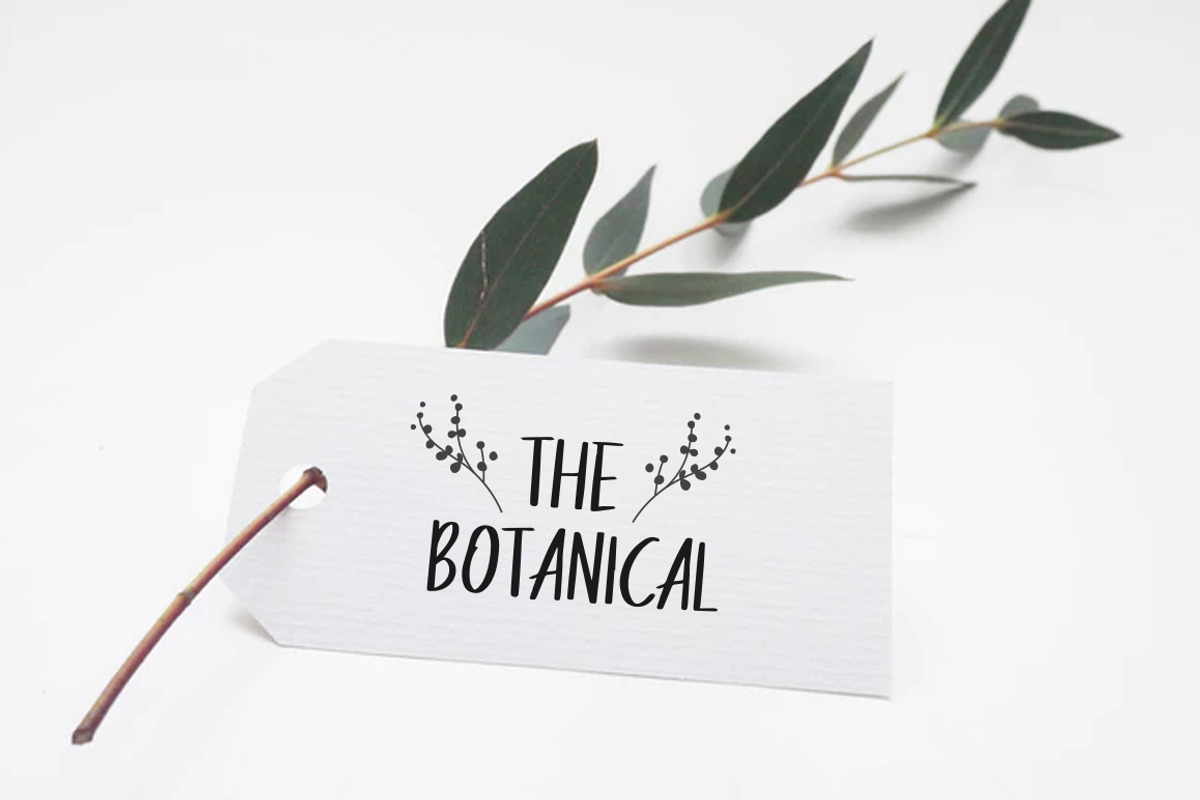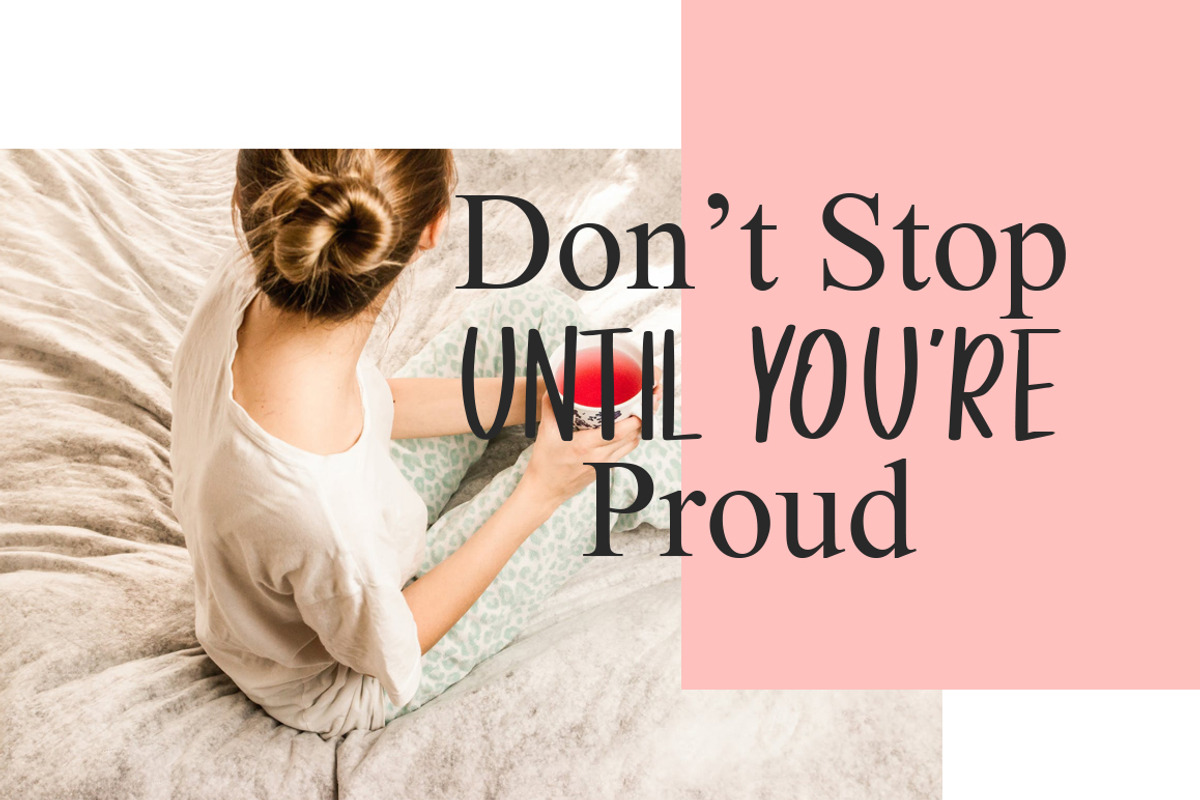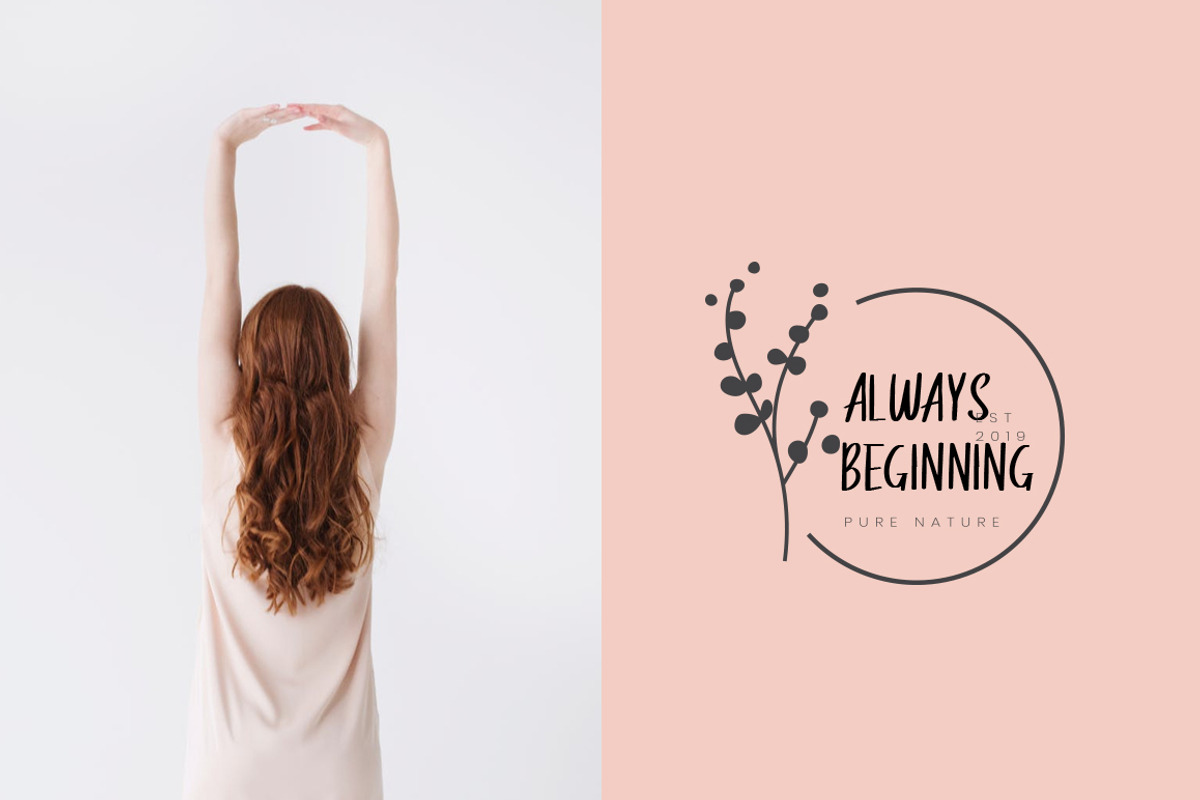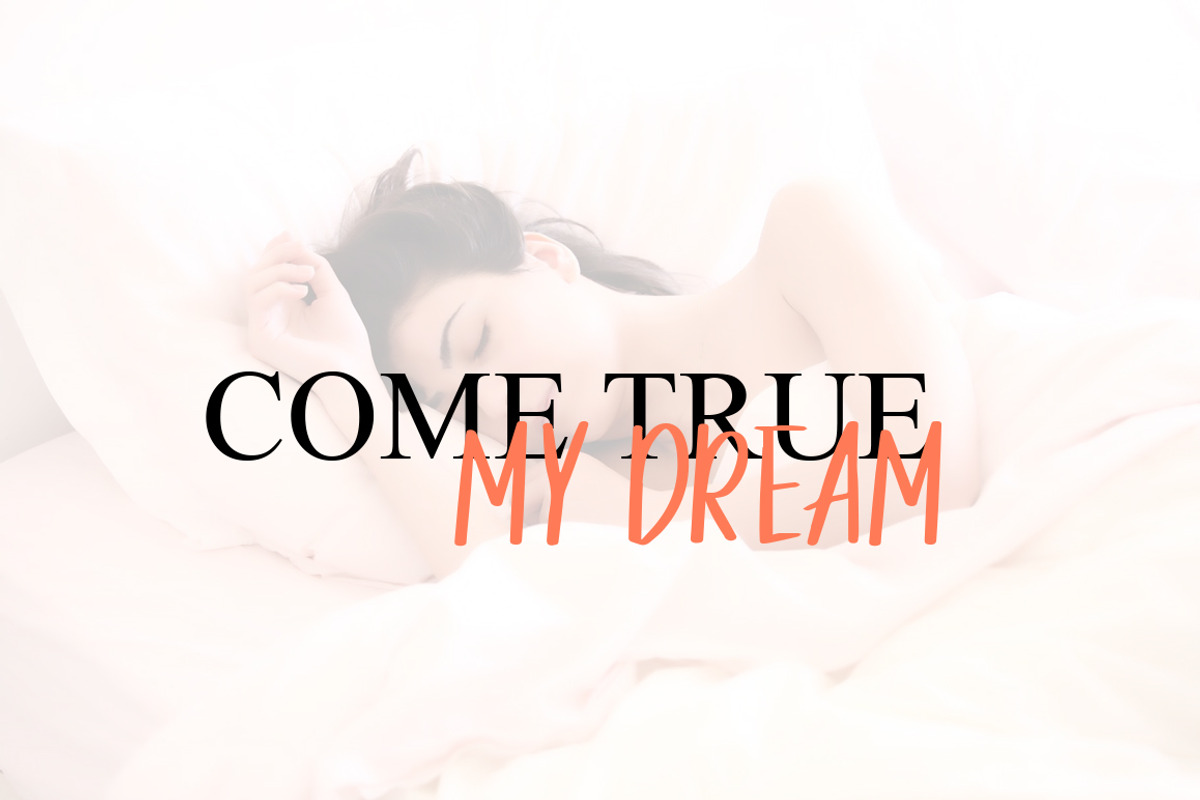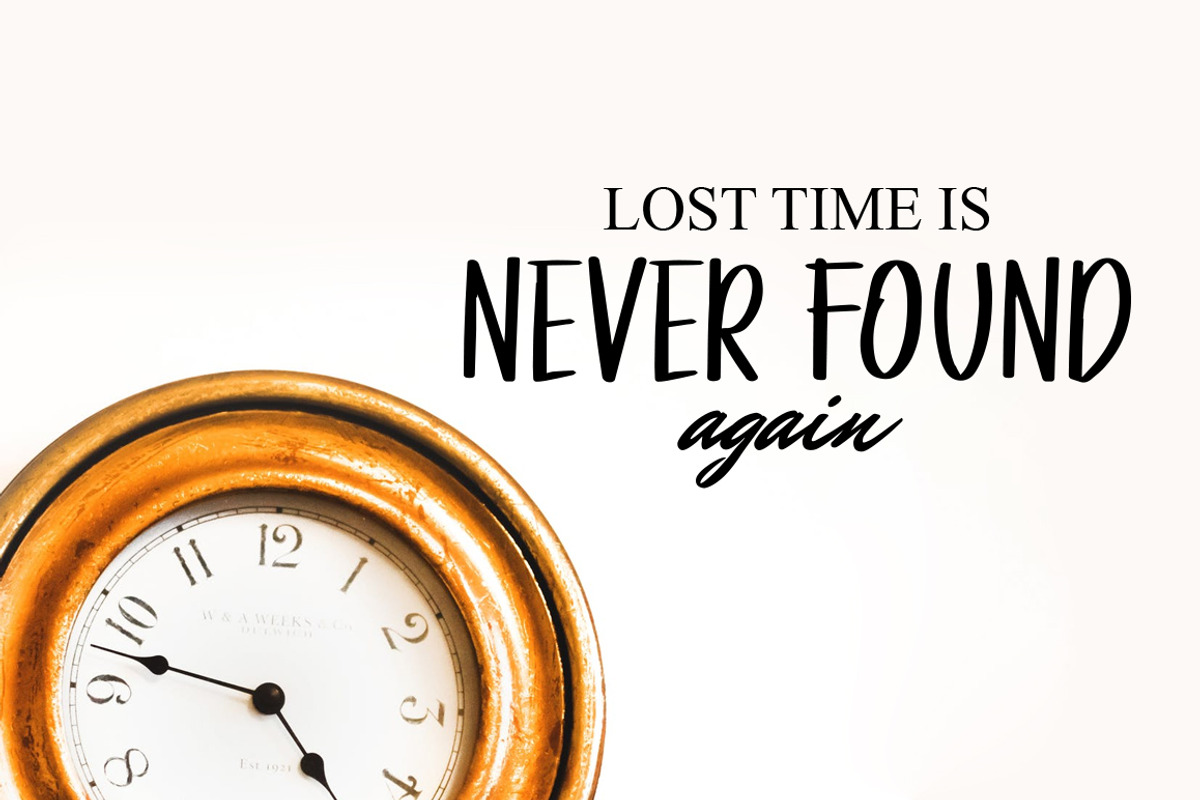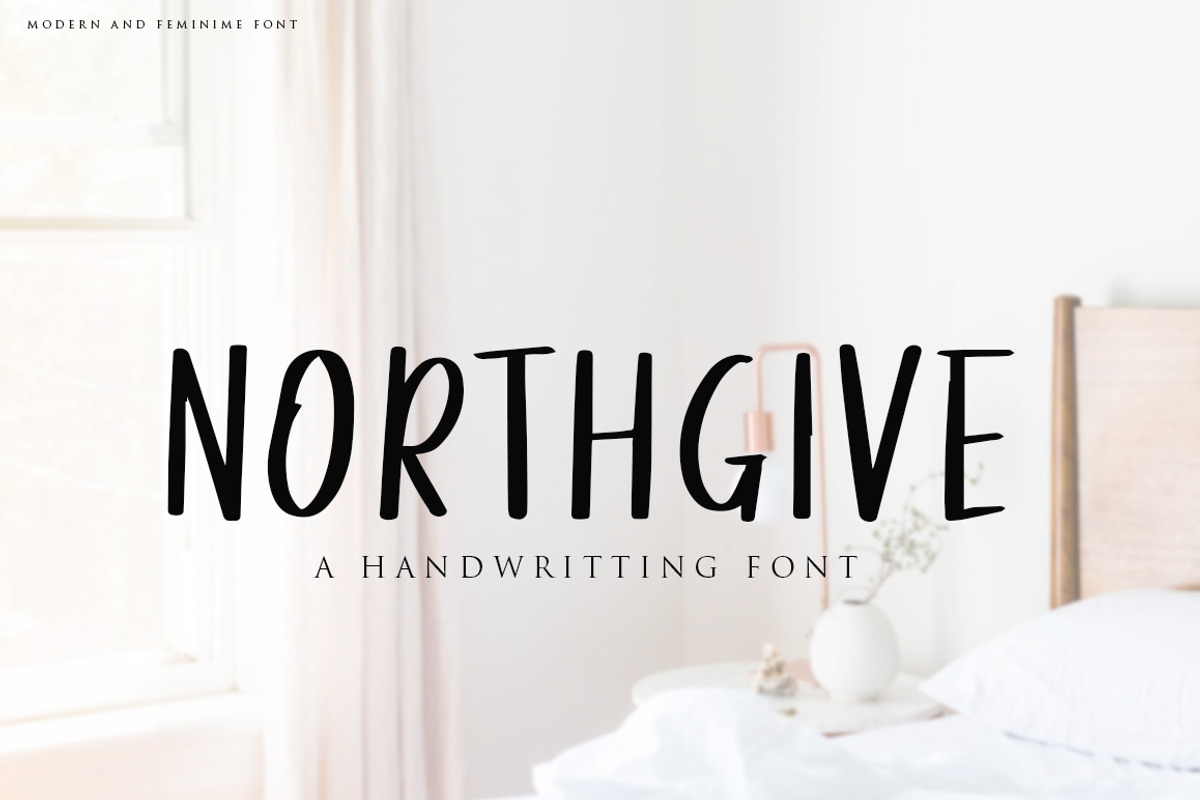
Northgive Font
Northgive Font is cheerful handmade brush font, with a bold weight perfect for adding some romance and charm to your designs. This script functions most strongly as a display or headline font. suitable for logo, logotype, branding, fashion, label, book cover, t-shirt, instagram post, and other.
Why Northgive Font is worth a look
Northgive Font by Indotitas fits naturally into Branding, posters, packaging, typography.